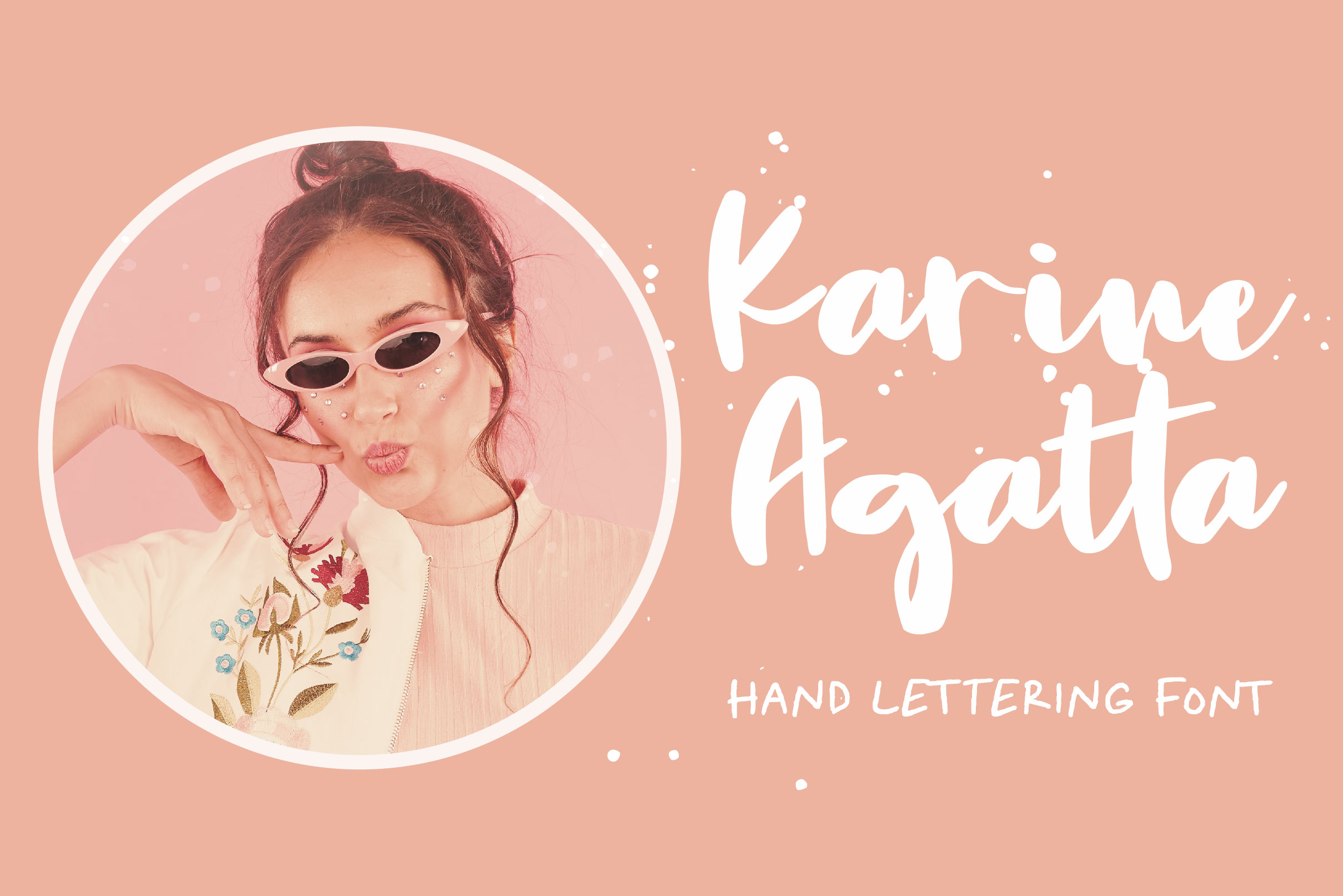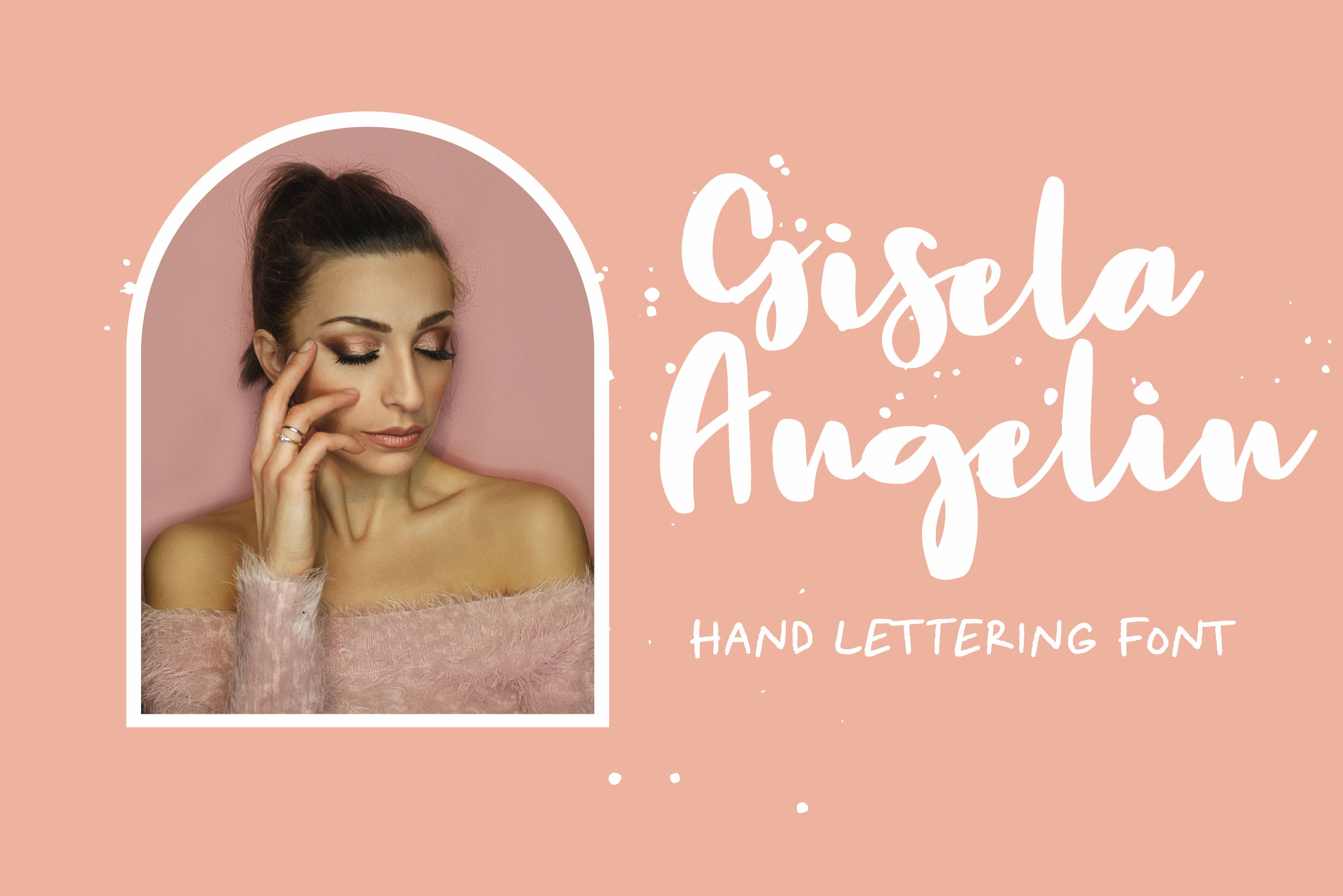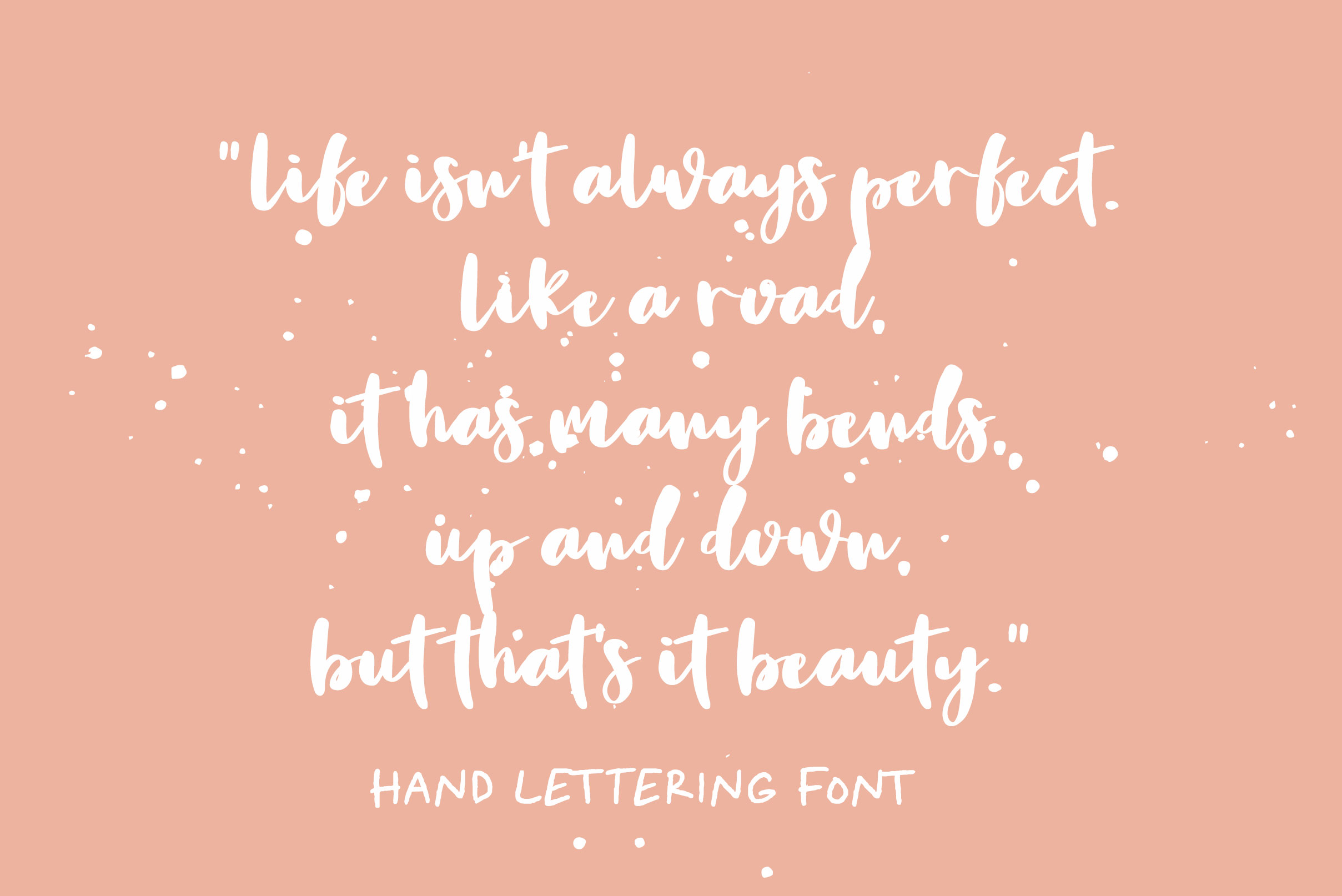
Risetta Sheme Font
Risetta Sheme Script Font is a hand-drawn font with a natural brush style. It is the perfect font for your social media business designs, advertisements, lettering, posters, and much more!
– Alternate Letters, Ligature & Swash/Tail